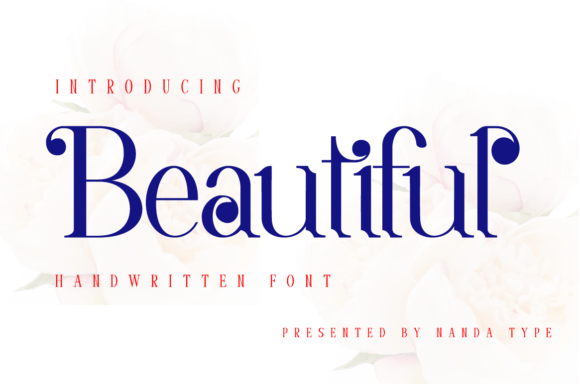
Unlock the Power of Beautiful Typography
Have you ever found yourself stuck on a design project, searching for the perfect font to bring your vision to life? You know that moment when you see a beautiful font and suddenly, everything clicks into place? That’s exactly what happened to me when I discovered the Beautiful Font.
This modern serif font family boasts a unique and classy style that looks stunning on any screen size. Whether you’re working on a vintage moodboard, branding project, or modern design, Beautiful Font is the perfect addition to your toolkit. With its ease of readability and accessibility, it’s no wonder this font has become a go-to choice for designers. Its PUA encoding allows for seamless access to all glyphs and sweeps, making it a valuable asset for any design project.
Key Features of Beautiful Font
- Font Family: Beautiful Font comes in 3 font families – Regular, Italic, and Bold, each with 12 different font styles.
- Unique Characteristics: Beautiful Font features a unique blend of modern and classic elements, with subtle nuances that make it stand out from other fonts.
- Language Support: Beautiful Font supports over 100 languages, including Latin, Cyrillic, and Greek alphabets, making it a versatile choice for global audiences.
Designer Review: Beautiful Font
I recently had the chance to work with the “Beautiful Font” and I must say, it’s a unique and interesting addition to any design project. ✨ The first thing that caught my attention was its elegant and sophisticated aesthetic, making it perfect for high-end branding and luxury products.
Here are some of the things that I think work well:
- ✨ Elegant and sophisticated aesthetic, perfect for high-end branding and luxury products.
- ✨ Excellent legibility, making it easy to read even at small font sizes.
However, there are also some limitations that I think are worth mentioning:
- ⚠️ Limited font sizes and styles, which can make it less versatile than other fonts.
- ⚠️ Can be a bit too ornate for some projects, which may detract from the overall design.
- ⚠️ Not as widely supported as other fonts, which can cause compatibility issues in some cases.
Overall, I think the “Beautiful Font” is a great addition to any design project that requires a touch of elegance and sophistication. While it may have some limitations, I think its unique aesthetic and excellent legibility make it a worthwhile choice for designers looking to create high-end and luxury designs.
For best results, use Beautiful Font for headings and titles to add a touch of elegance to your design.
Use Beautiful Font to add a touch of sophistication to your graphics and illustrations.
Use Beautiful Font to add a touch of elegance to your presentations and documents.
Remember to use Beautiful Font sparingly to avoid overwhelming your design. A little goes a long way!